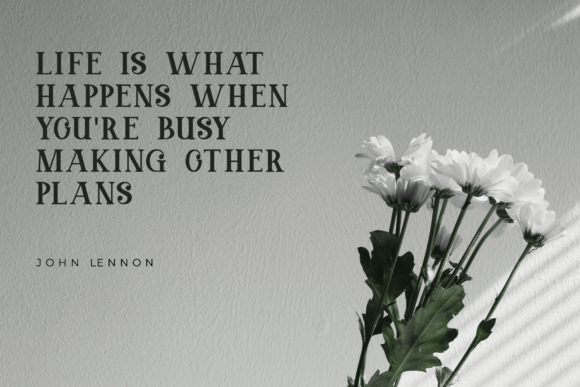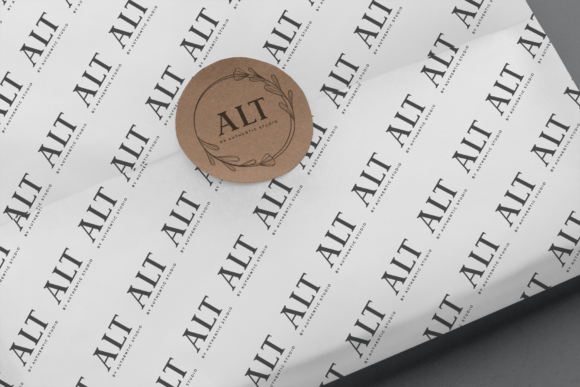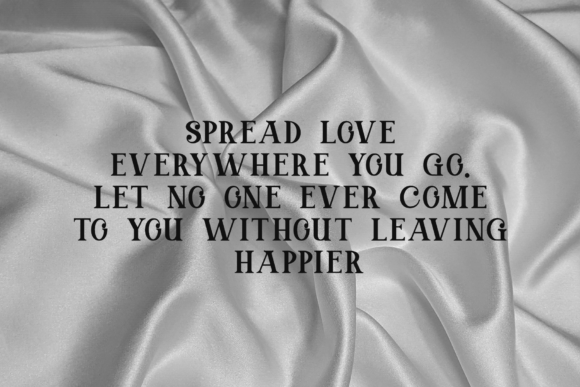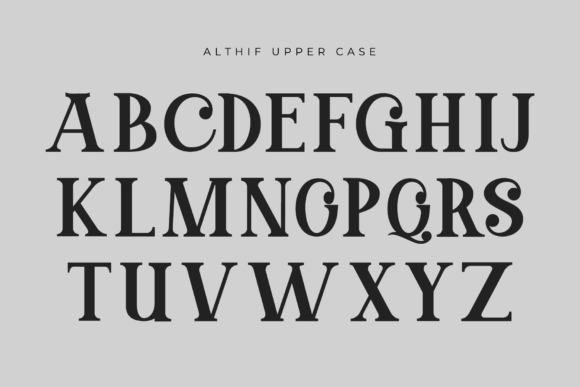
Introducing Althif Font: Elevate Your Designs with Elegance and Modernity
Are you a designer or crafter looking for a font that can add a touch of sophistication and style to your creations? Look no further than Althif Font, an aesthetic serif font designed to meet all your design needs. With its simple yet elegant shape, Althif Font is the perfect choice for those who want to elevate their designs and make them stand out.
What is Althif Font?
Althif Font is a carefully crafted serif font that boasts a unique blend of classic and modern elements. Its simple shape makes it incredibly versatile, allowing it to be used in a wide range of design applications, from elegant headings and titles to body text and more. Whether you’re working on a logo, brochure, website, or social media graphics, Althif Font is the perfect choice.
Key Features of Althif Font
- Elegant Serif Design: Althif Font features a beautiful serif design that adds a touch of sophistication to any design.
- Simple and Clean Shape: The font’s simple shape makes it easy to read and versatile enough to be used in various design applications.
- Modern and Stylish: Althif Font brings a modern and stylish touch to your designs, making them stand out from the crowd.
- Highly Legible: The font is designed to be highly legible, making it perfect for body text and other applications where readability is crucial.
Benefits of Using Althif Font
So, why choose Althif Font for your design projects? Here are just a few benefits of using this amazing font:
- Enhance Your Brand’s Visual Identity: Althif Font can help you create a consistent visual identity for your brand, making it more recognizable and memorable.
- Elevate Your Designs: With its elegant and modern design, Althif Font can elevate your designs and make them more engaging and effective.
- Save Time and Effort: The font’s simplicity and legibility make it easy to use, saving you time and effort in the design process.
- Stand Out from the Crowd: Althif Font is designed to help you stand out from the crowd and make your designs more noticeable and impactful.
How to Use Althif Font in Your Designs
Using Althif Font in your designs is easy and straightforward. Here are a few tips to get you started:
- Pair it with Other Fonts: Althif Font works well with other fonts, so feel free to experiment with different pairings to create a unique look.
- Experiment with Different Sizes and Colors: The font’s simplicity makes it versatile enough to be used in various sizes and colors, so don’t be afraid to experiment and find the perfect combination for your design.
- Use it for Headings and Titles: Althif Font is perfect for headings and titles, where its elegant and modern design can really shine.
| Font Name | Althif Font |
| Author | Authentic Studio |
In conclusion, Althif Font is an amazing serif font that can add a touch of elegance and modernity to your designs. With its simple shape, elegant design, and high legibility, it’s the perfect choice for designers and crafters looking to elevate their creations and make them stand out. So why wait? Download Althif Font today and start creating stunning designs that will leave a lasting impression!